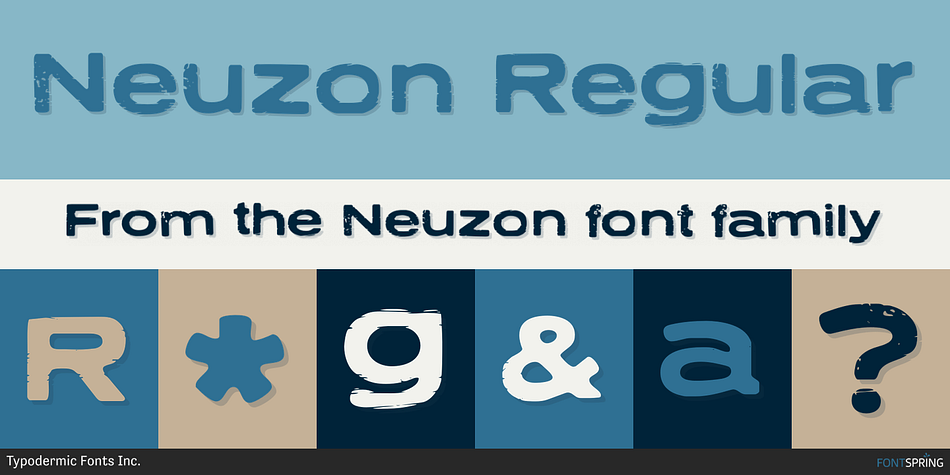
Neuzon Regular
Neuzon is a grunge font published by Typodermic Fonts Inc.
Neuzon pays homage to the bygone era of antique metal typesetting with a retro design that brings an air of nostalgia and character to any project. This textured, inky typeface is a modern interpretation of the iconic Tempo Bold Extended typeface.
One of the standout features of Neuzon is its unique custom letter pairings. These pairings help to break up the uniformity of repeating letters, adding a touch of artistry and originality to your designs. The result is a typeface that exudes rustic charm and a warm, authentic feel that is sure to leave a lasting impression on your audience.
Designed with versatility in mind, Neuzon’s wide letterforms make it a great choice for a variety of design projects. It works particularly well as a headliner, instantly capturing attention and drawing the eye with its bold and engaging style. Whether you’re creating a vintage-themed poster or revamping your website, Neuzon’s distinctive personality is sure to leave a lasting impression.